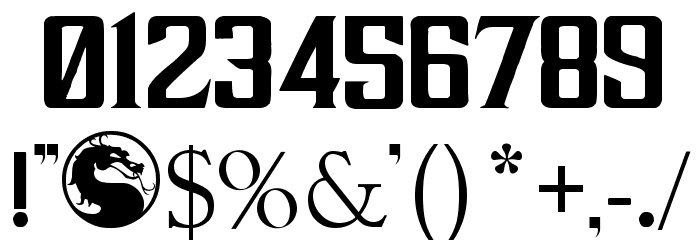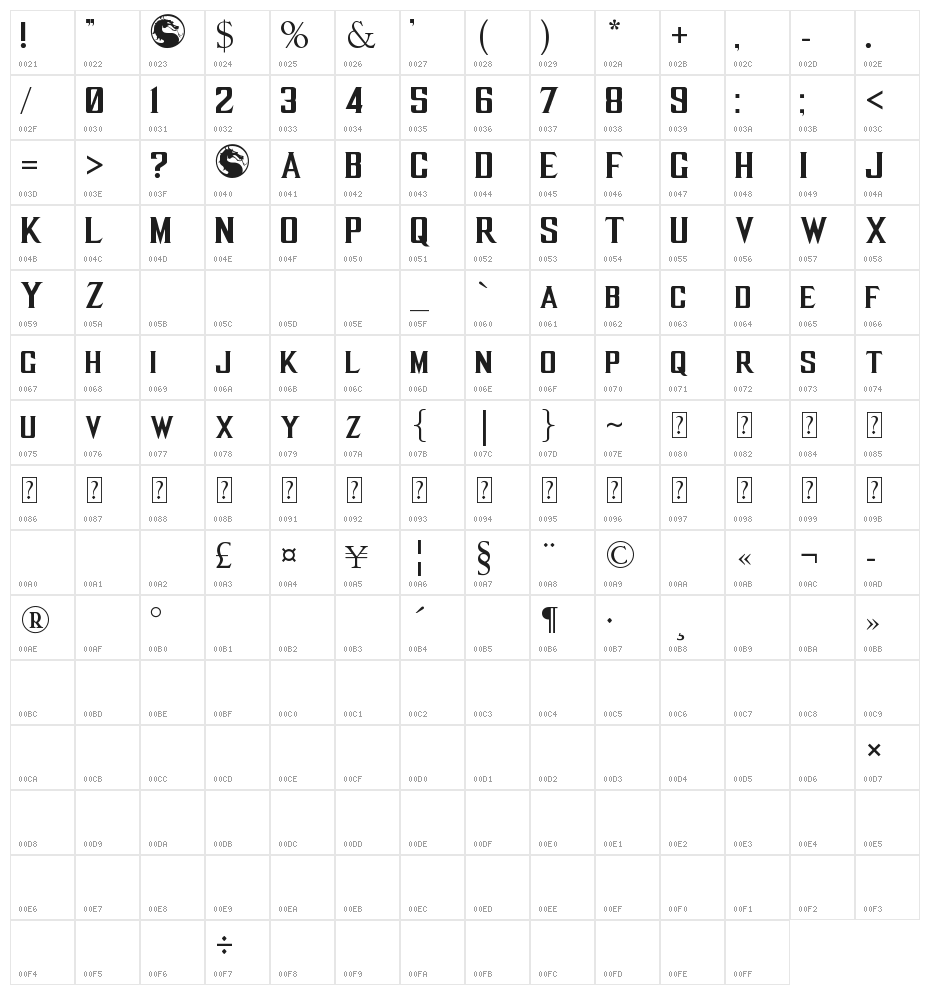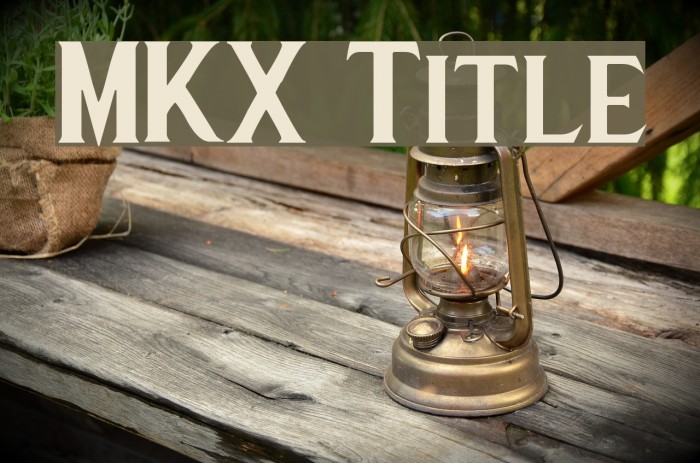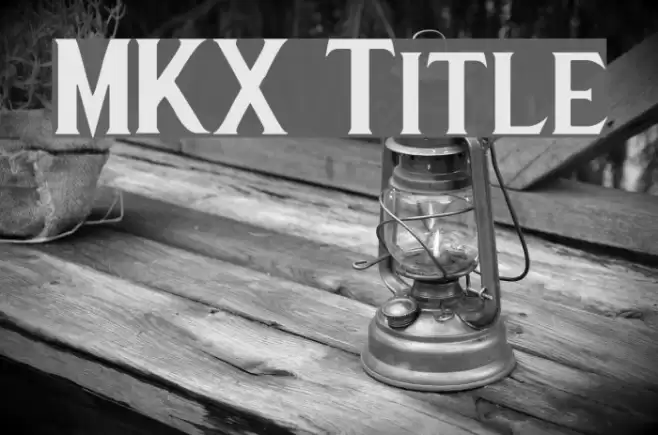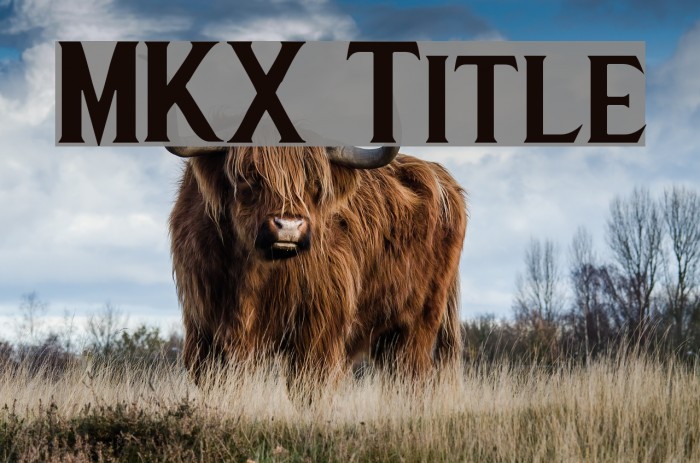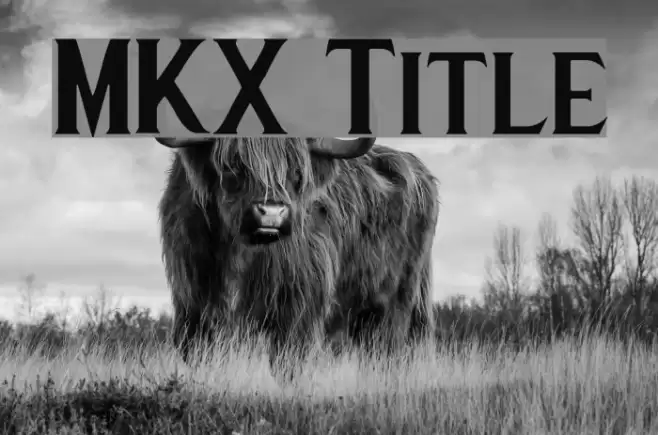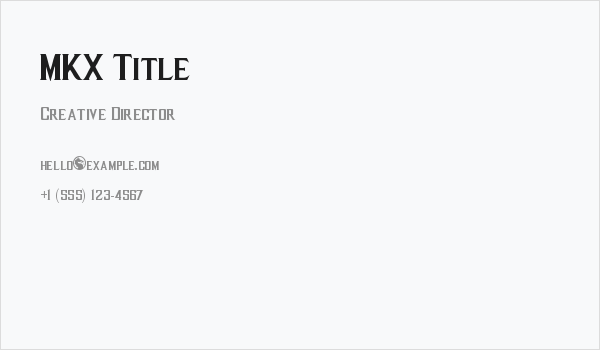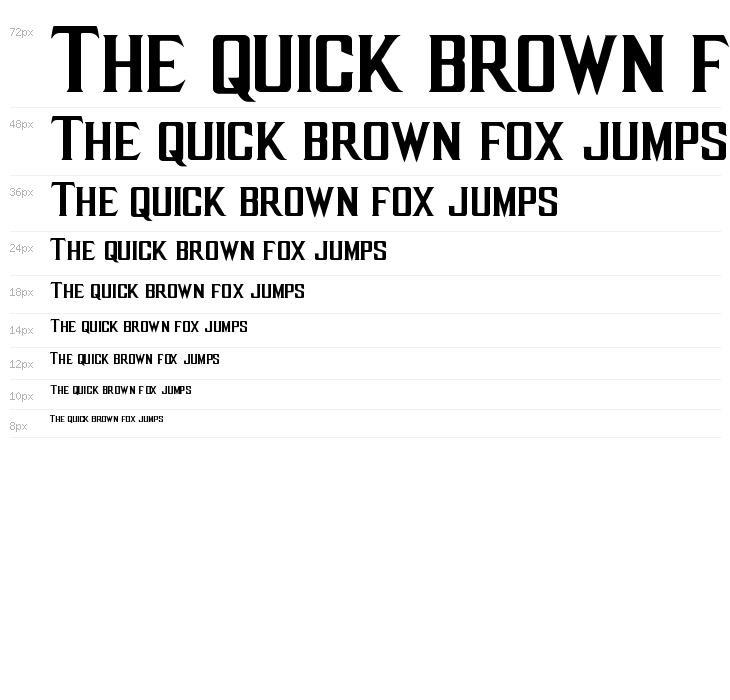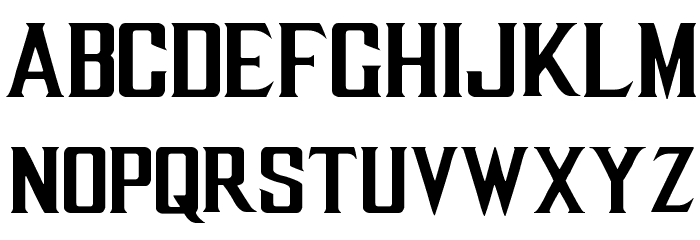
MKX Title Font
MKX Title Description
This font features a bold and impactful design with strong geometric shapes and sharp edges. The uppercase letters are particularly striking, with a sense of authority and power. The numerals are equally bold, maintaining the same strong presence. Special characters are included, adding versatility to the font's use. The overall style is modern and assertive, making it suitable for projects that require a commanding visual presence.
| Proposed Projects | Ideal for video game titles, movie posters, sports branding, and any project requiring a strong, impactful typeface. |